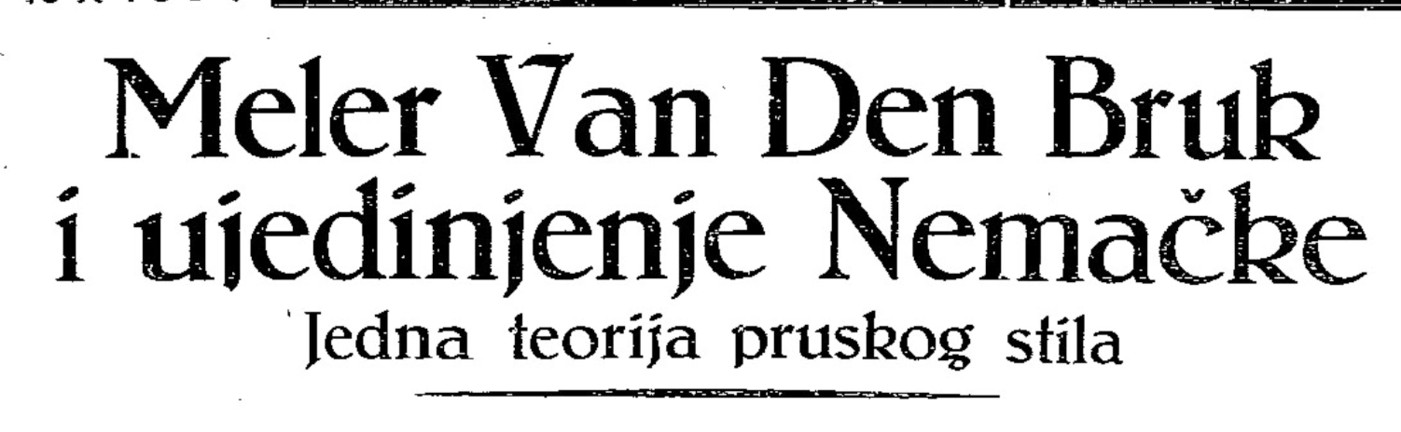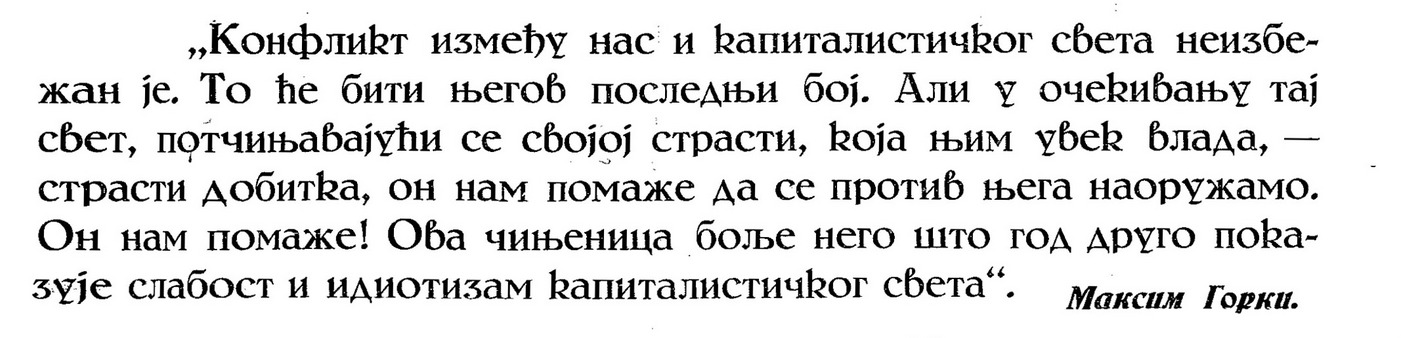
Font identification needed, from print editions 1935
I was digging thru old Serbian newspapers in the digital library when i noticed this typeface.
I wonder is it a known style or something that might be lost in digital transition. here are some samples i did a screenshot of.
This is a latin, mixed case.
Cyrillic caps
Here is a mixed case cyrillic paragraph.
Let me know if it looks familiar. My knowledge in serif is really basic so it might be a really famous one for all i know.
Solved by George Thomas
The font is Belwe, originally called Belwe Medium Bold from Schelter & Giesecke, 1926. The font was digitized by Bitstream under the name Belwe Medium.
I had no idea where to start the search. The font is certainly Belwe. I still have more on the topic, but since the font identification is done i will continue  here.